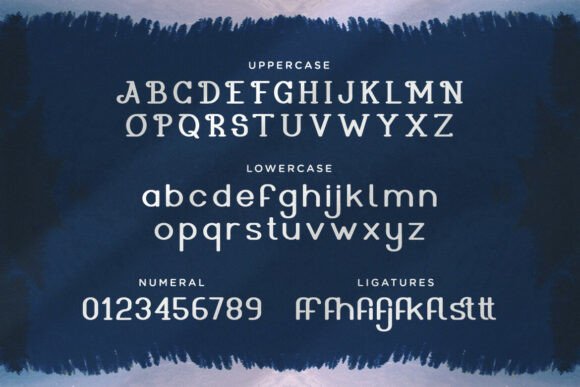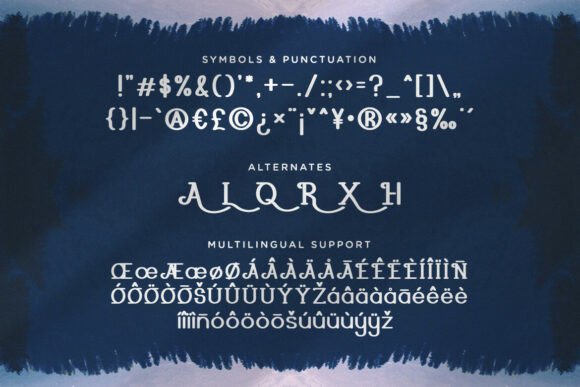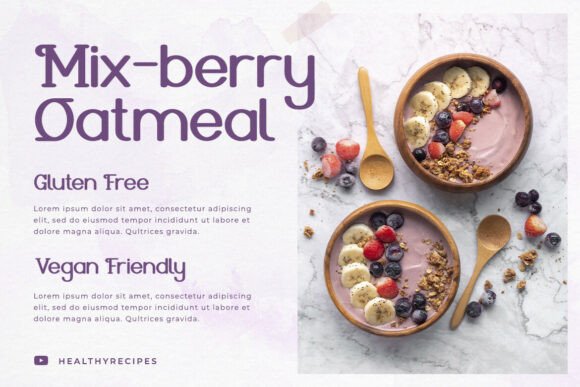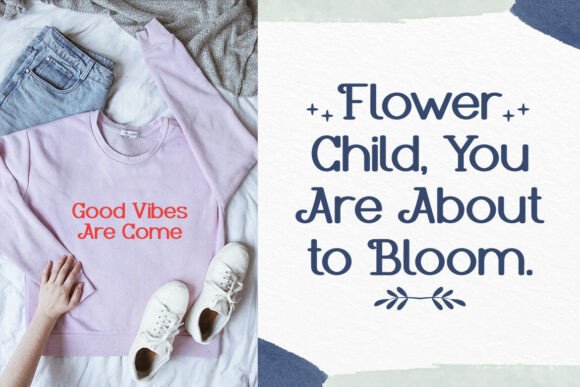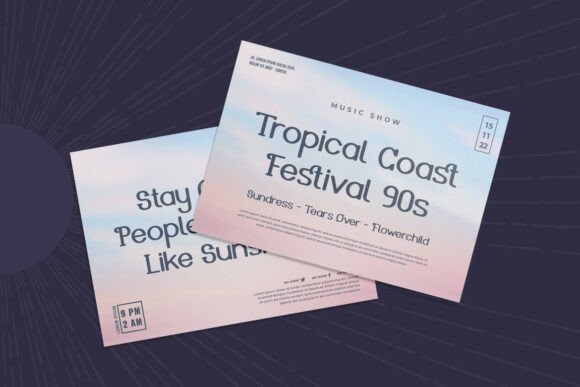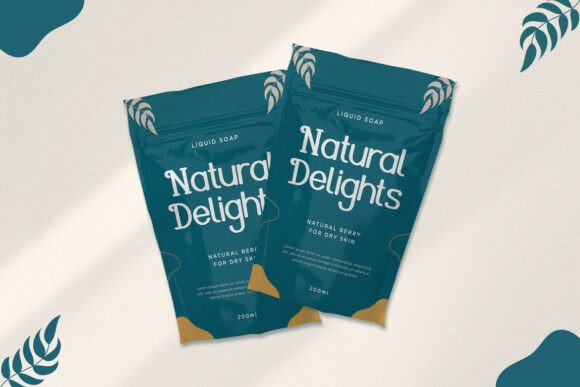
Introducing Harmist Font: A Unique Handwritten Slab Serif Typeface
In the world of typography, finding the perfect font that balances structure and personality can be a daunting task. However, Harmist Font is here to revolutionize the way you approach your design projects. This handwritten slab serif typeface seamlessly combines strong serif structure with soft and organic curves, making it an ideal choice for designers and crafters looking for a friendly yet structured typographic style.
The Characteristics of Harmist Font
Harmist Font boasts a unique set of characteristics that set it apart from other typefaces. Its letterforms feature a slightly irregular shape, giving it a natural and approachable visual character. The font’s strong slab serif construction provides a sense of stability and reliability, while its soft and organic curves add a touch of warmth and personality. This blend of bold and relaxed elements makes Harmist Font perfect for a wide range of design applications.
Design Applications for Harmist Font
Harmist Font is an incredibly versatile typeface that can be used in various design projects. Its friendly and approachable nature makes it suitable for:
- Lifestyle Branding: Harmist Font is perfect for lifestyle brands looking for a typographic style that resonates with their audience. Its natural and approachable character makes it ideal for brands that want to convey a sense of warmth and personality.
- Organic Products: For brands that specialize in organic products, Harmist Font offers a typographic style that aligns perfectly with their values. The font’s earthy and natural feel makes it suitable for packaging, labels, and marketing materials.
- Food Packaging: Harmist Font is a great choice for food packaging design. Its friendly and inviting nature makes it perfect for labeling food products, creating menus, or designing promotional materials.
- Apparel Design: For designers looking to create apparel with a personal touch, Harmist Font offers a unique typographic style that adds a touch of personality to any garment.
- Promotional Materials: Whether you’re designing flyers, brochures, or posters, Harmist Font is an excellent choice. Its bold and yet relaxed nature makes it perfect for grabbing attention and conveying your message.
Editorial Layouts and Creative Display Typography
In addition to its use in branding and packaging, Harmist Font is also suitable for editorial layouts and creative display typography. Its strong serif structure and soft curves make it perfect for:
- Magazines and Newspapers: Harmist Font can be used to create engaging headlines, subheadings, and body copy that draws readers in.
- Blogs and Online Publications: For bloggers and online publishers, Harmist Font offers a typographic style that enhances the reading experience and adds a touch of personality to your content.
- Creative Display Typography: With its unique blend of bold and relaxed elements, Harmist Font is perfect for creative display typography projects, such as posters, billboards, and signage.
Why Choose Harmist Font?
With so many typefaces available, why choose Harmist Font? Here are just a few reasons why designers and crafters love this unique handwritten slab serif typeface:
- Unique Personality: Harmist Font offers a distinctive typographic style that sets it apart from other typefaces.
- Versatility: Harmist Font can be used in a wide range of design applications, from branding and packaging to editorial layouts and creative display typography.
- Approachable and Friendly: The font’s natural and approachable character makes it perfect for designers looking to create a friendly and inviting visual identity.
In conclusion, Harmist Font is a unique and versatile handwritten slab serif typeface that offers a perfect blend of structure and personality. Its strong serif structure, soft curves, and slightly irregular shape make it an ideal choice for designers and crafters looking for a friendly yet structured typographic style. Whether you’re working on branding, packaging, editorial layouts, or creative display typography, Harmist Font is sure to elevate your design projects and add a touch of personality to your visual identity.